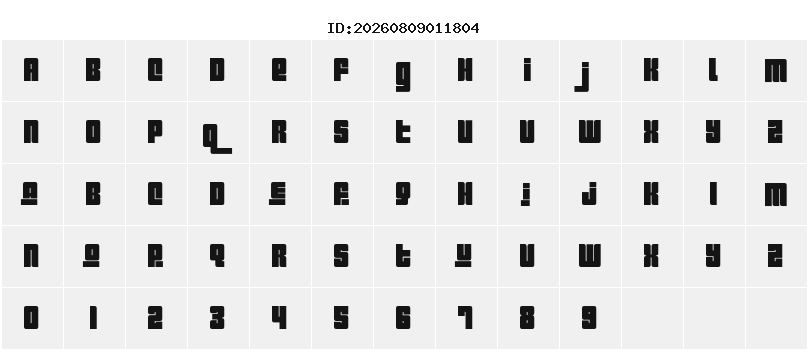
Pincoyablack Preview
• Font Name: Pincoyablack
• Font Style: Black
• Designer: Daniel Hern‡ndez S‡nchez
About Pincoyablack.otf
Pincoyablack.otf is a modern, elegant sans-serif font designed for ultimate readability and visual harmony. Perfect for branding, headlines, web design, and print materials.